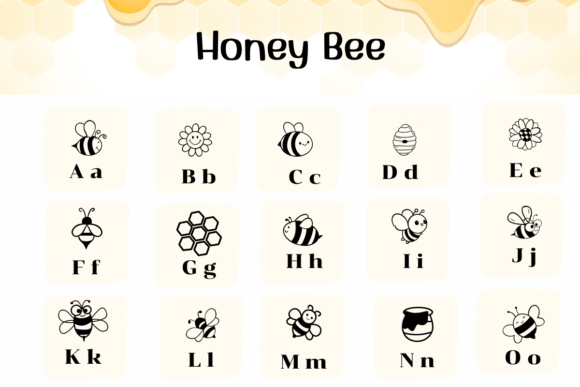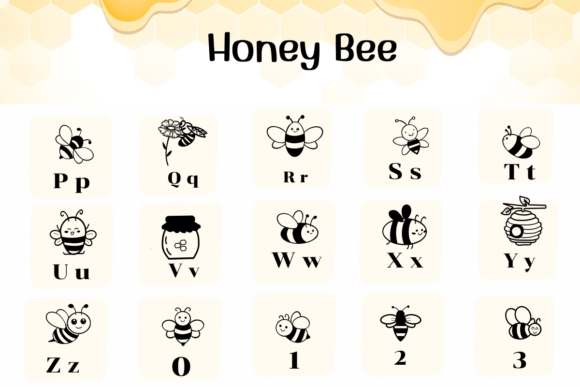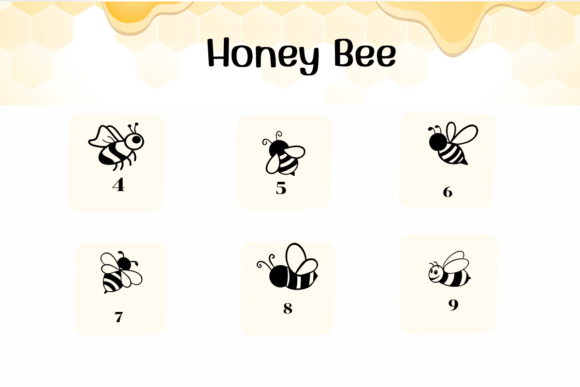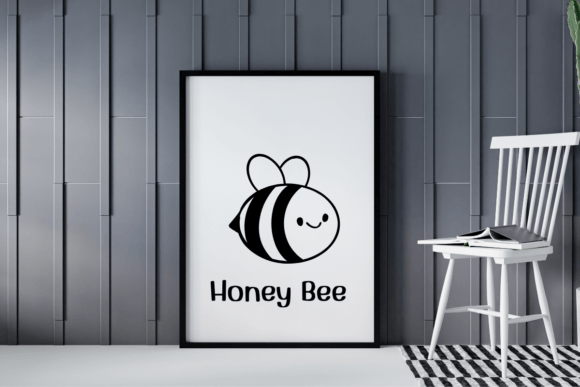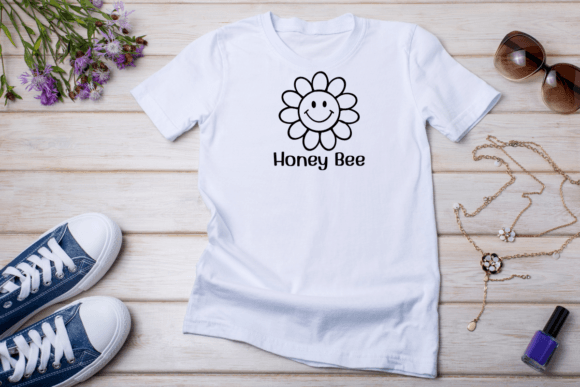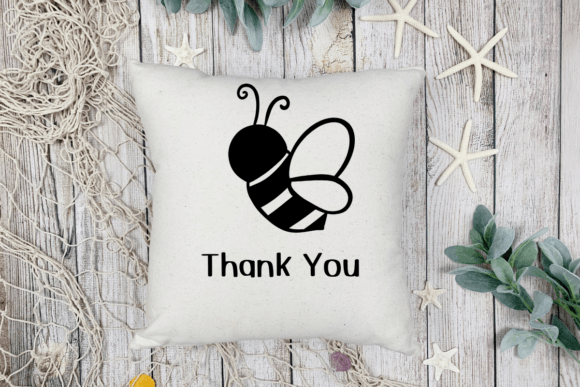
Get Ready to Buzz with Creativity
Have you ever found yourself staring at a blank design project, feeling stuck and uninspired? I know I have! It’s those moments when you need a spark of creativity to get your ideas flowing. For me, it’s often the little things that set my imagination buzzing – like a beautiful font that adds a touch of whimsy to my designs.
That’s where the Honey Bee Font comes in – a delightful dingbat font featuring adorable bee designs that are perfect for adding a sweet, buzzing touch to your projects. Whether you’re creating invitations, cards, or crafts, this font is sure to bring a smile to your face and a touch of warmth to your designs. As a designer, I can attest that having a versatile font like Honey Bee Font in your toolkit is invaluable – it’s the perfect way to add a personal touch to your work and make it truly special.
Honey Bee Font Key Features
- Unique Characteristics: The Honey Bee Font features a unique, hand-drawn style with intricate details and textures, giving it a distinctive and whimsical feel.
Honey Bee Font Review
The Honey Bee Font is a cute and playful font that’s perfect for designs that need a touch of whimsy. ✨ The rounded edges and smooth lines make it a great choice for children’s books, greeting cards, and other creative projects.
One of the things that stands out about this font is its versatility. ✨ It can be used for a variety of purposes, from headings to body text, and it looks great in both uppercase and lowercase letters. The font also comes with a range of weights and styles, making it easy to customize to fit your design needs.
- ⚠️ The font may not be suitable for formal or professional designs, as it can come across as too casual.
- ⚠️ The font’s rounded edges can make it difficult to read in small sizes or at a distance.
Overall, the Honey Bee Font is a great choice for designers who want to add a touch of personality to their designs. While it may not be suitable for every project, it’s a versatile and fun font that’s sure to delight.
The Honey Bee Font is perfect for creating whimsical and playful designs, such as:
- Birthday invitations and party decorations.
- Food and drink labels, such as honey and bee-themed products.
- Children’s book illustrations and educational materials.
For the best results, use the Honey Bee Font in conjunction with other playful and whimsical design elements, such as illustrations and graphics.